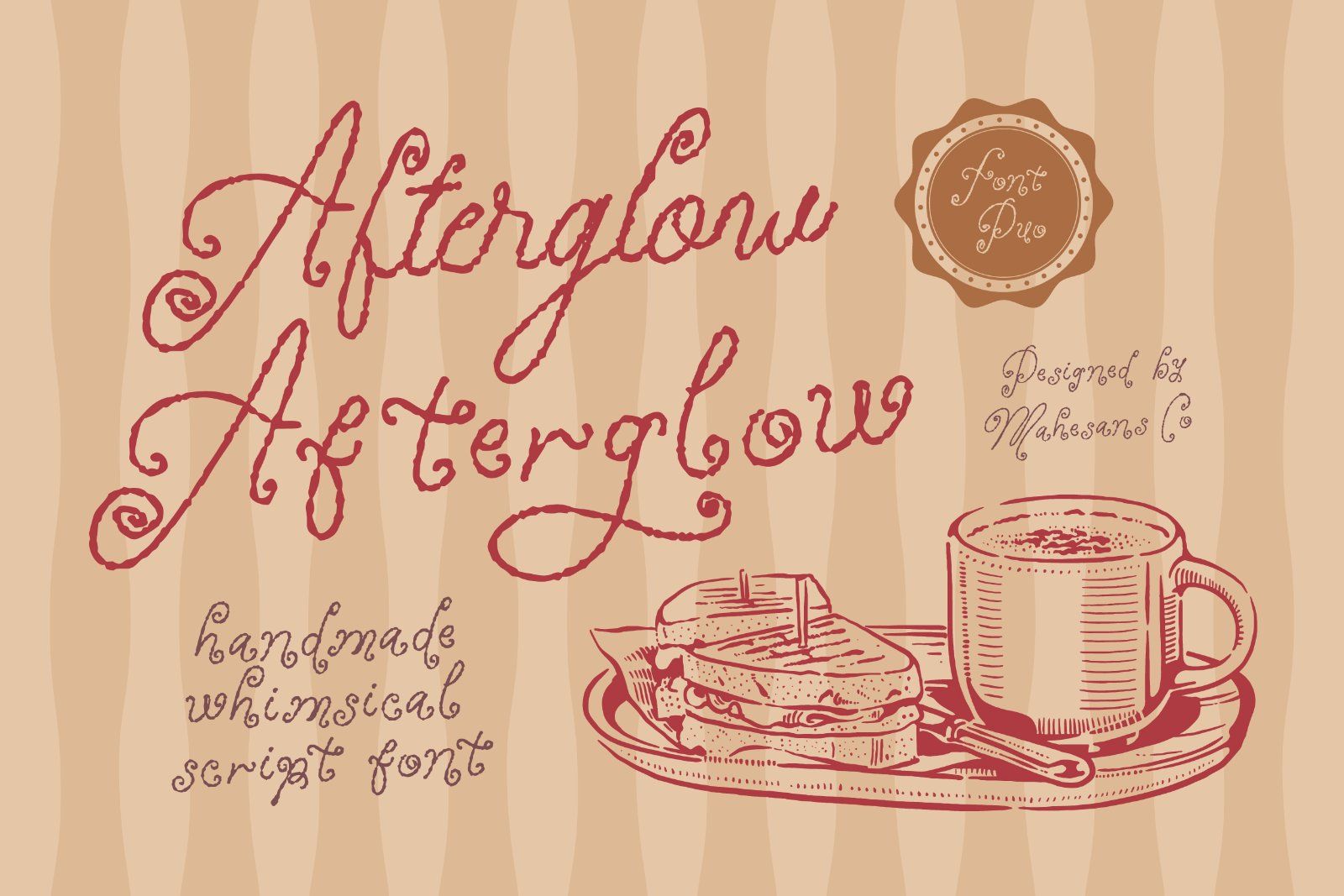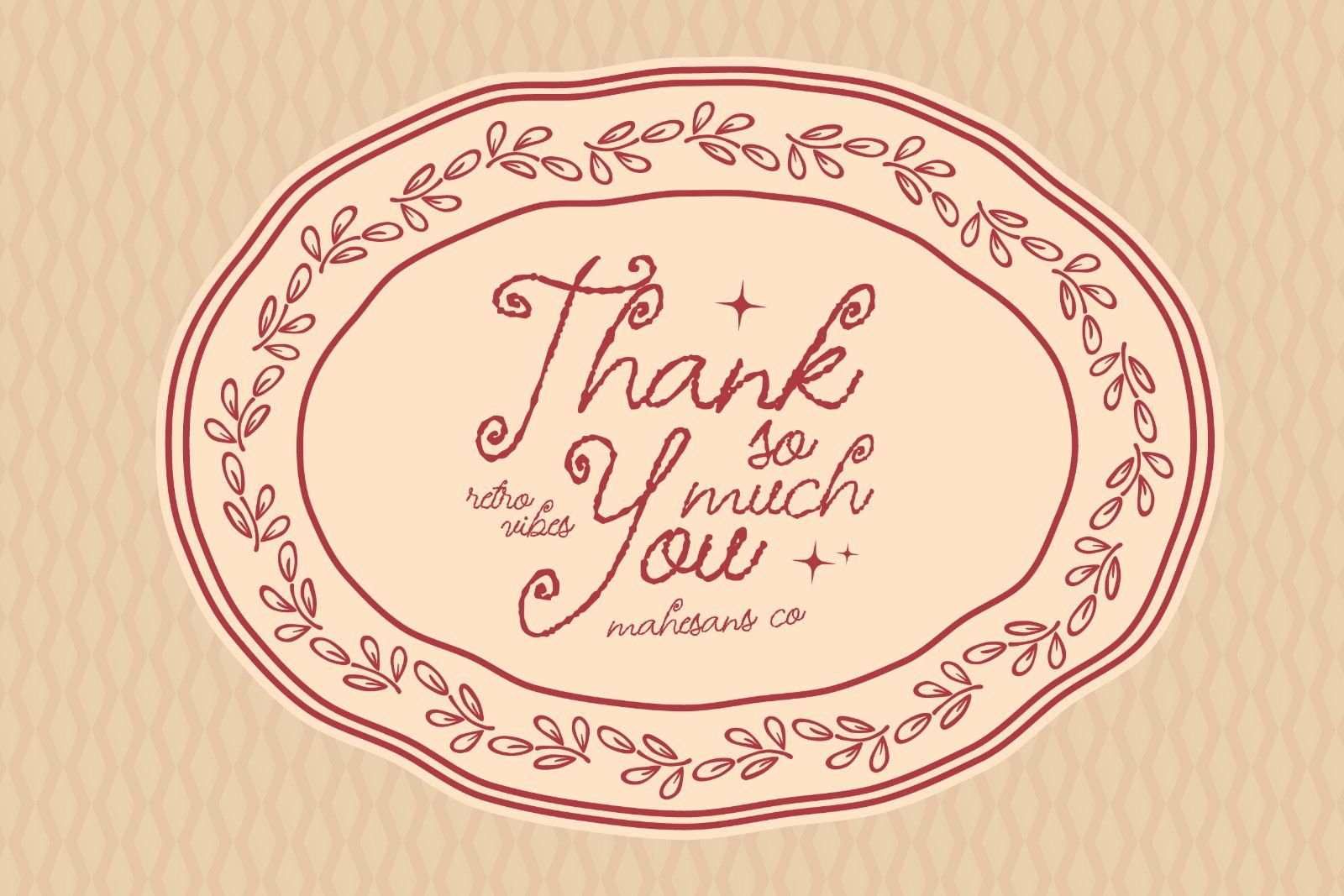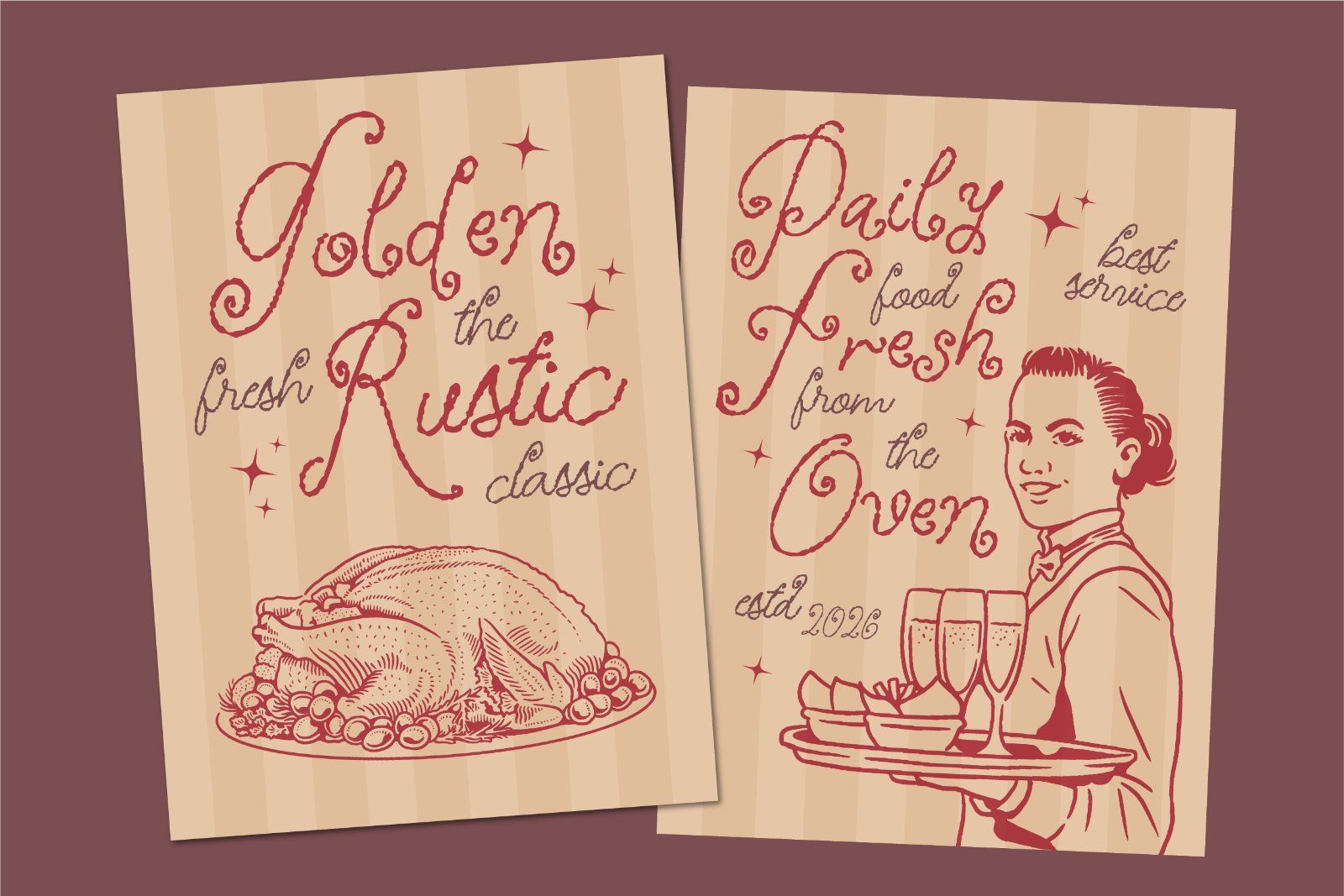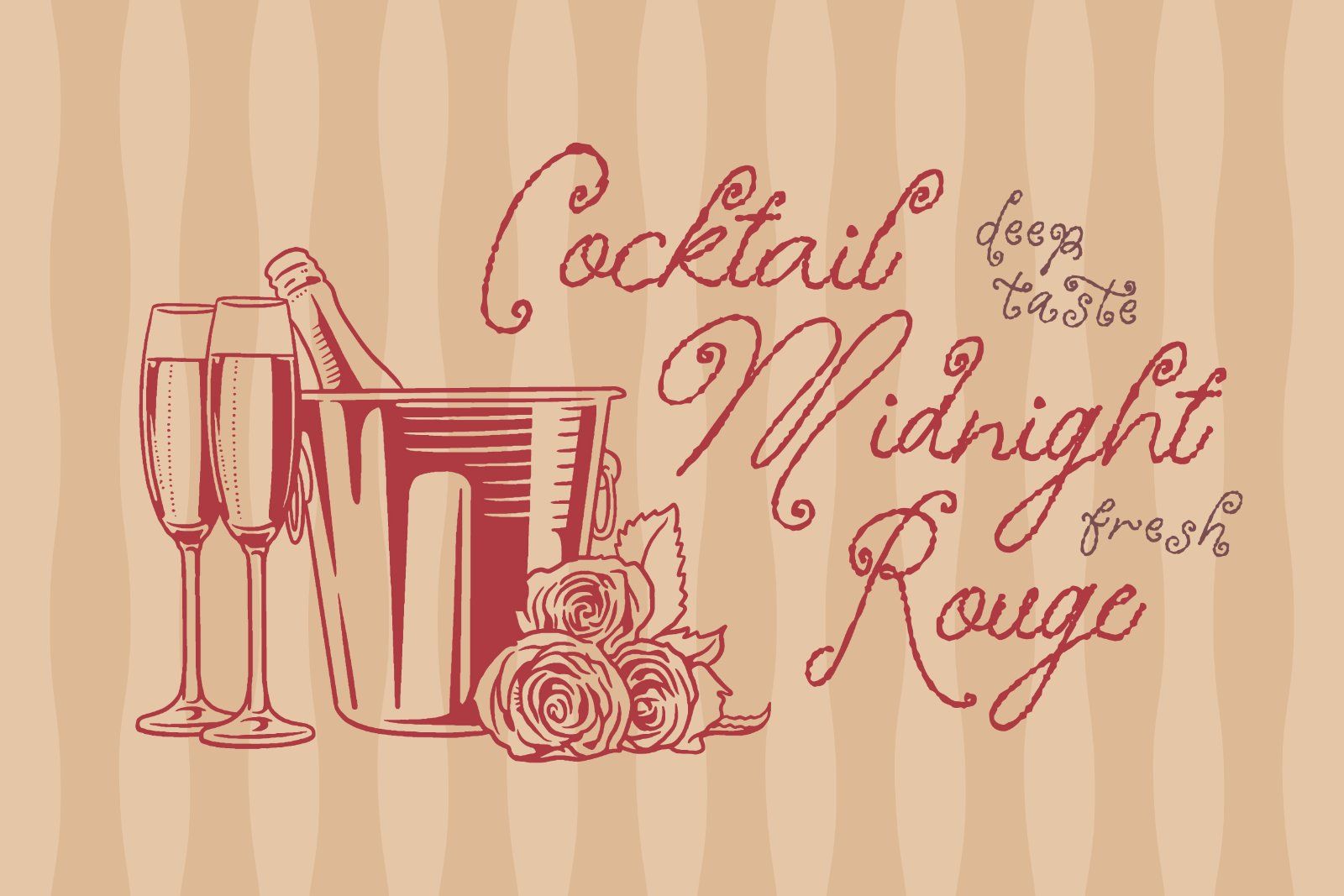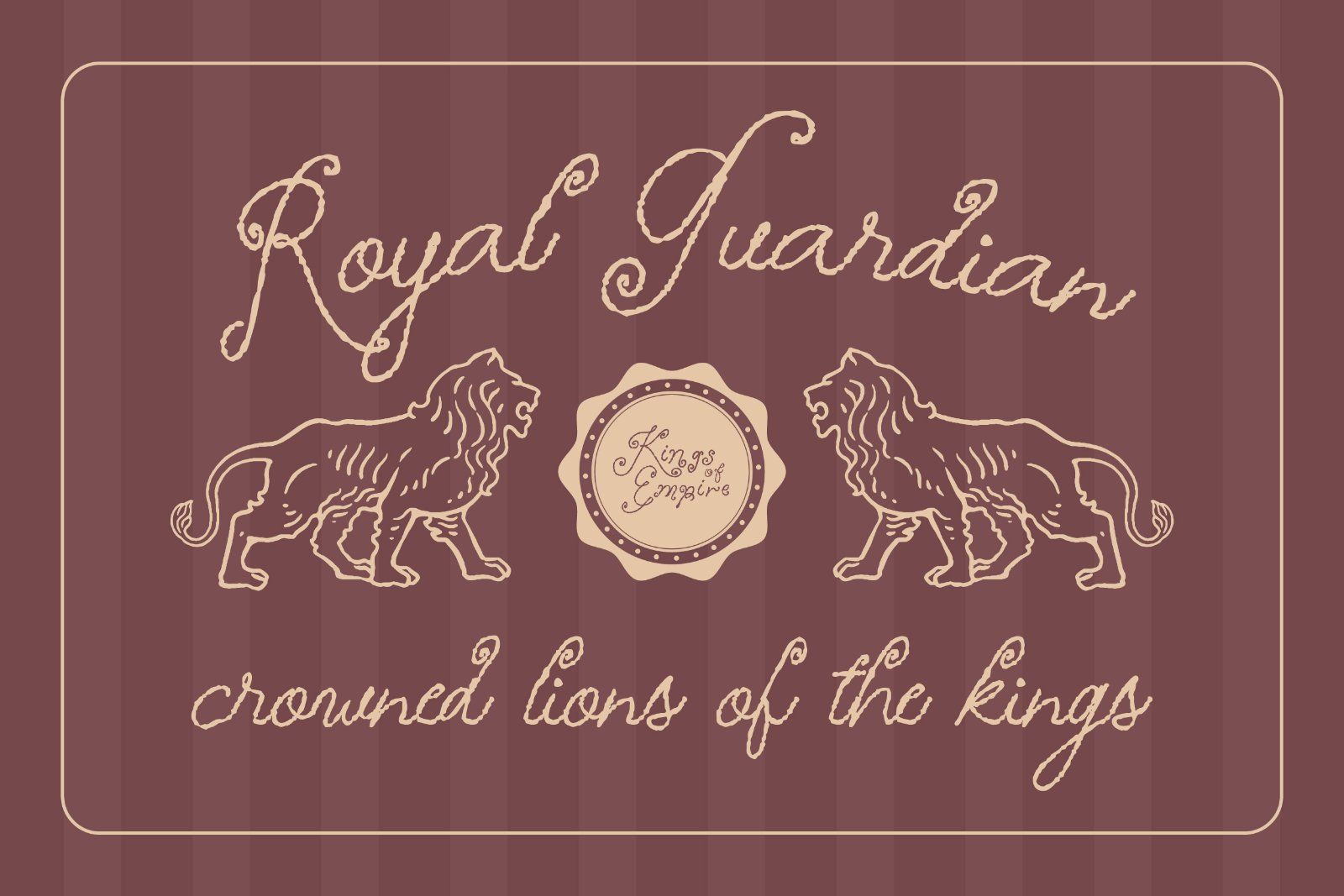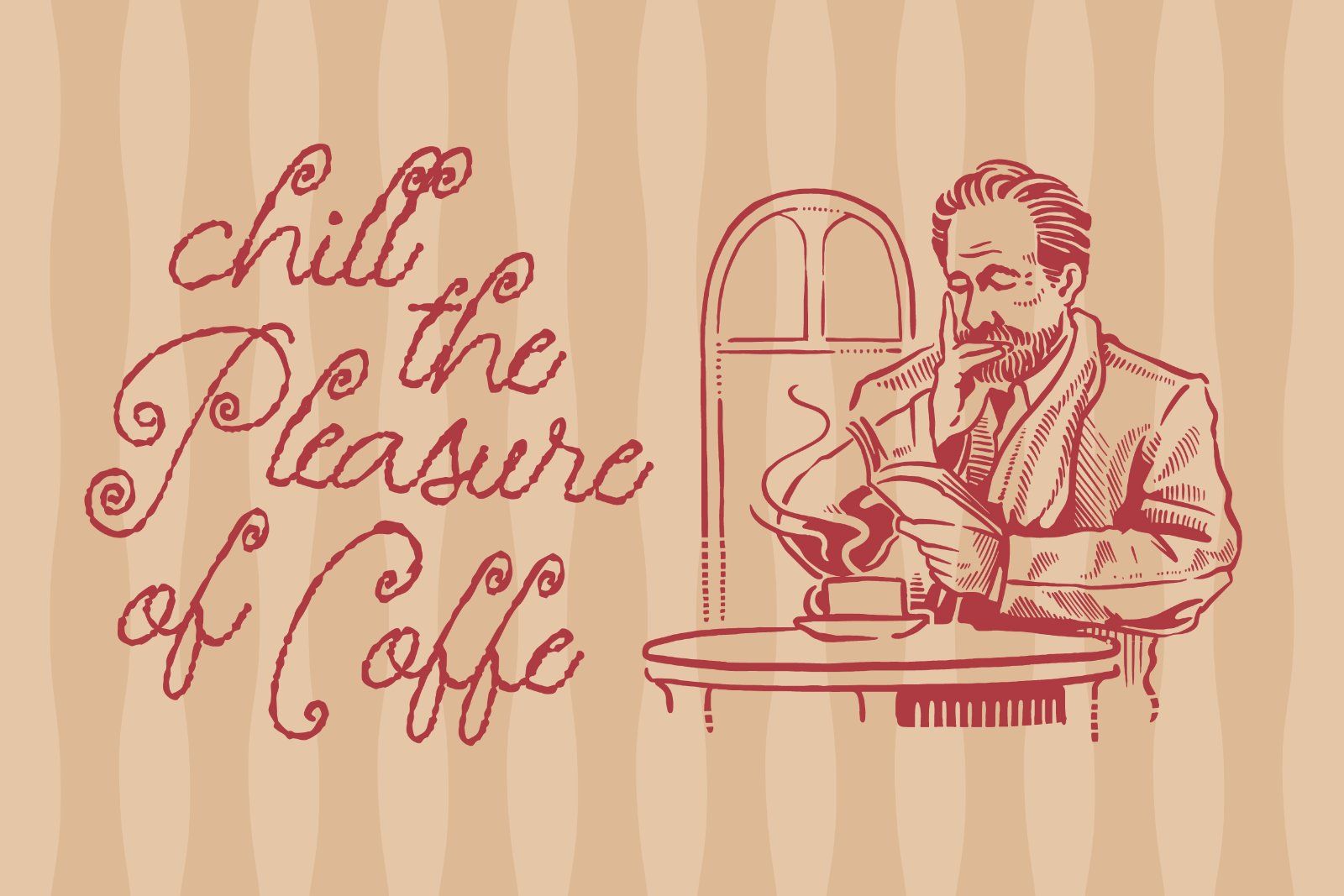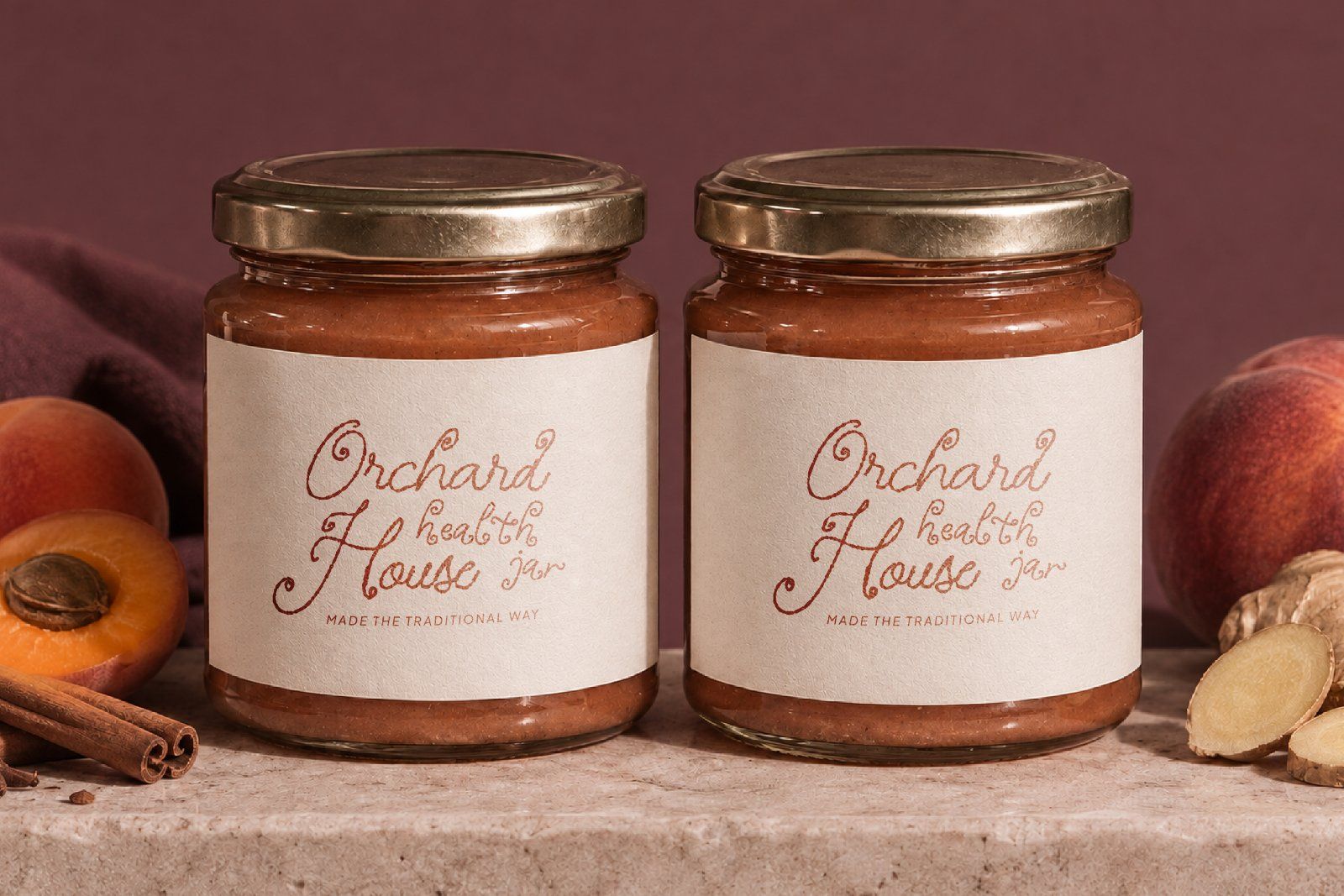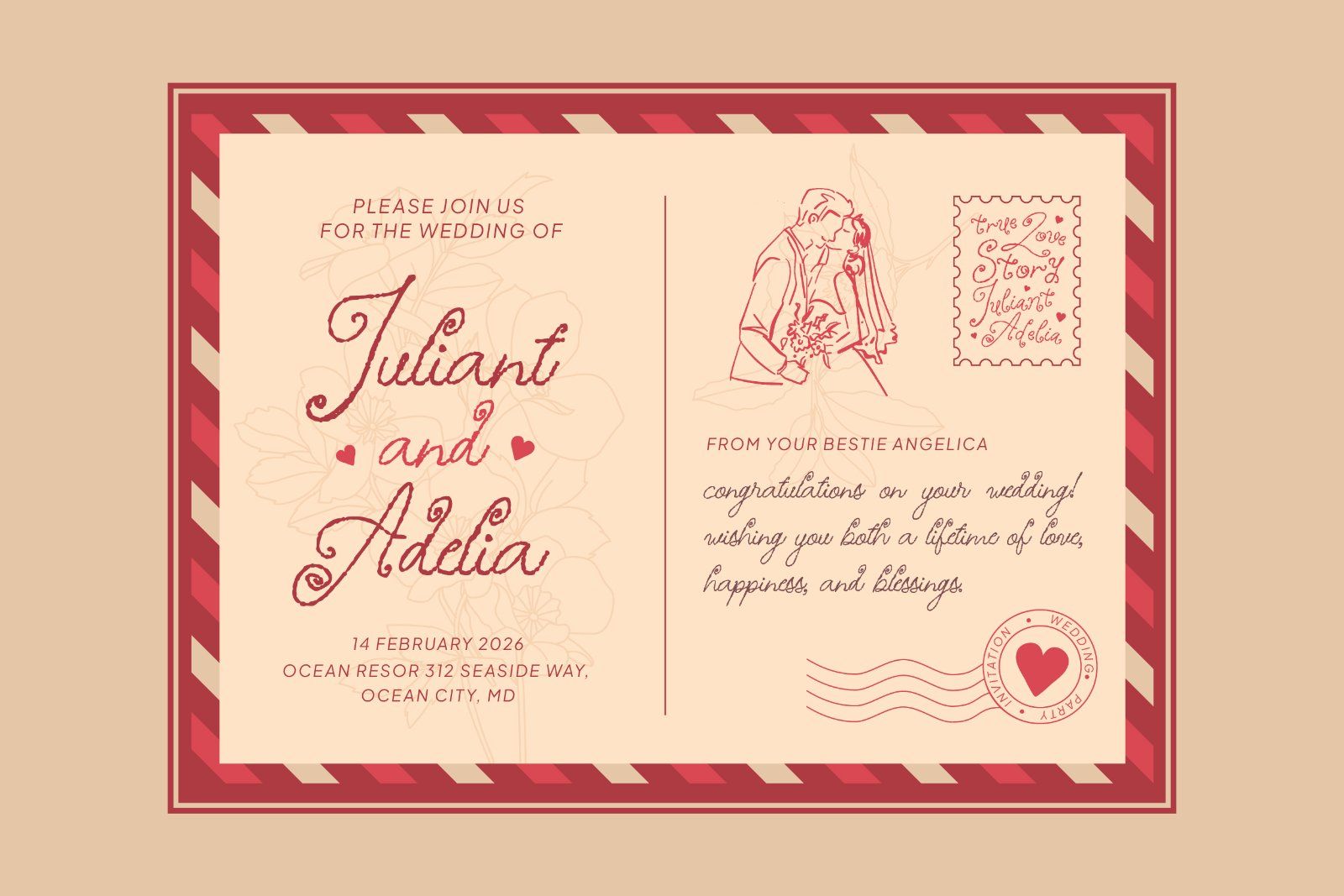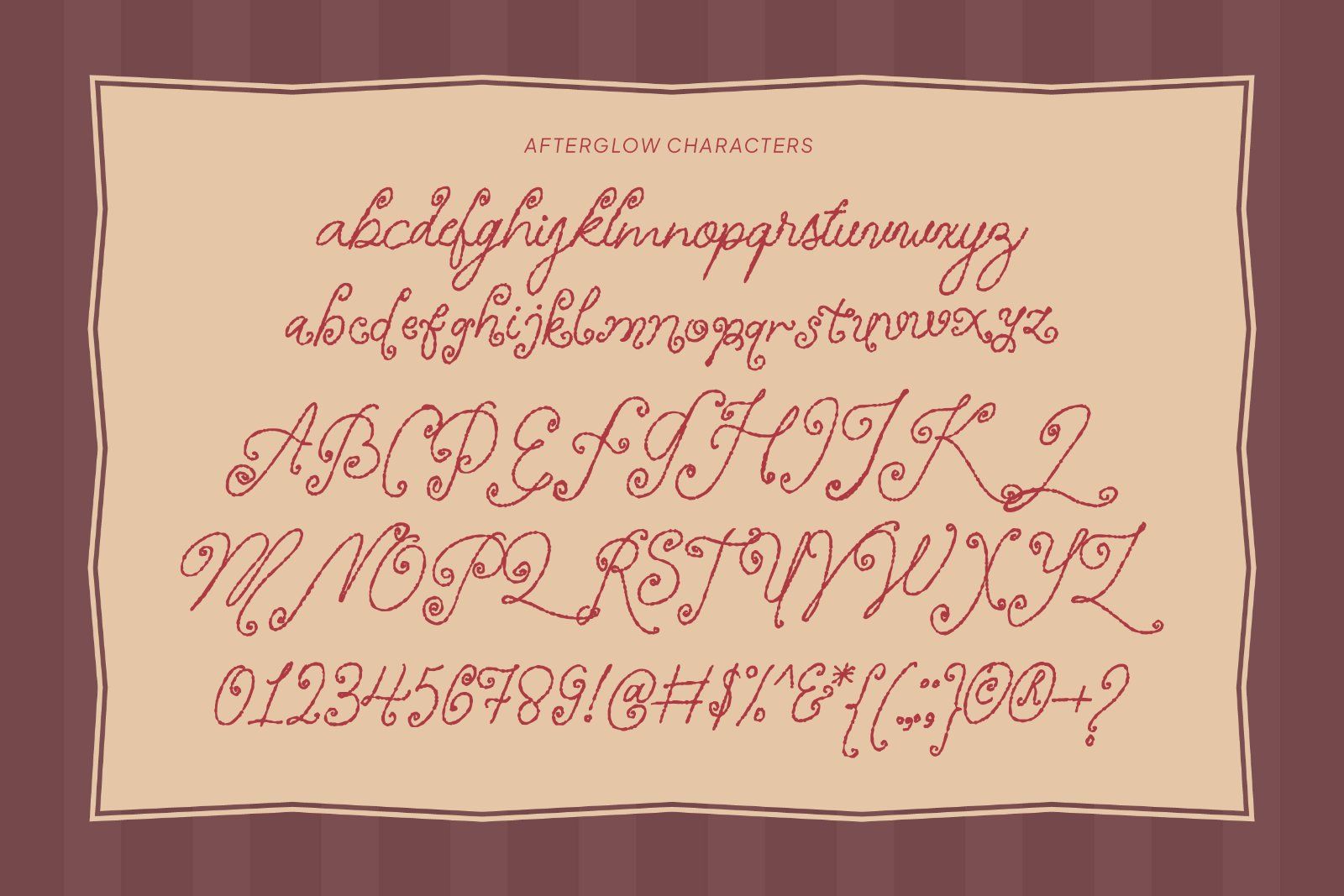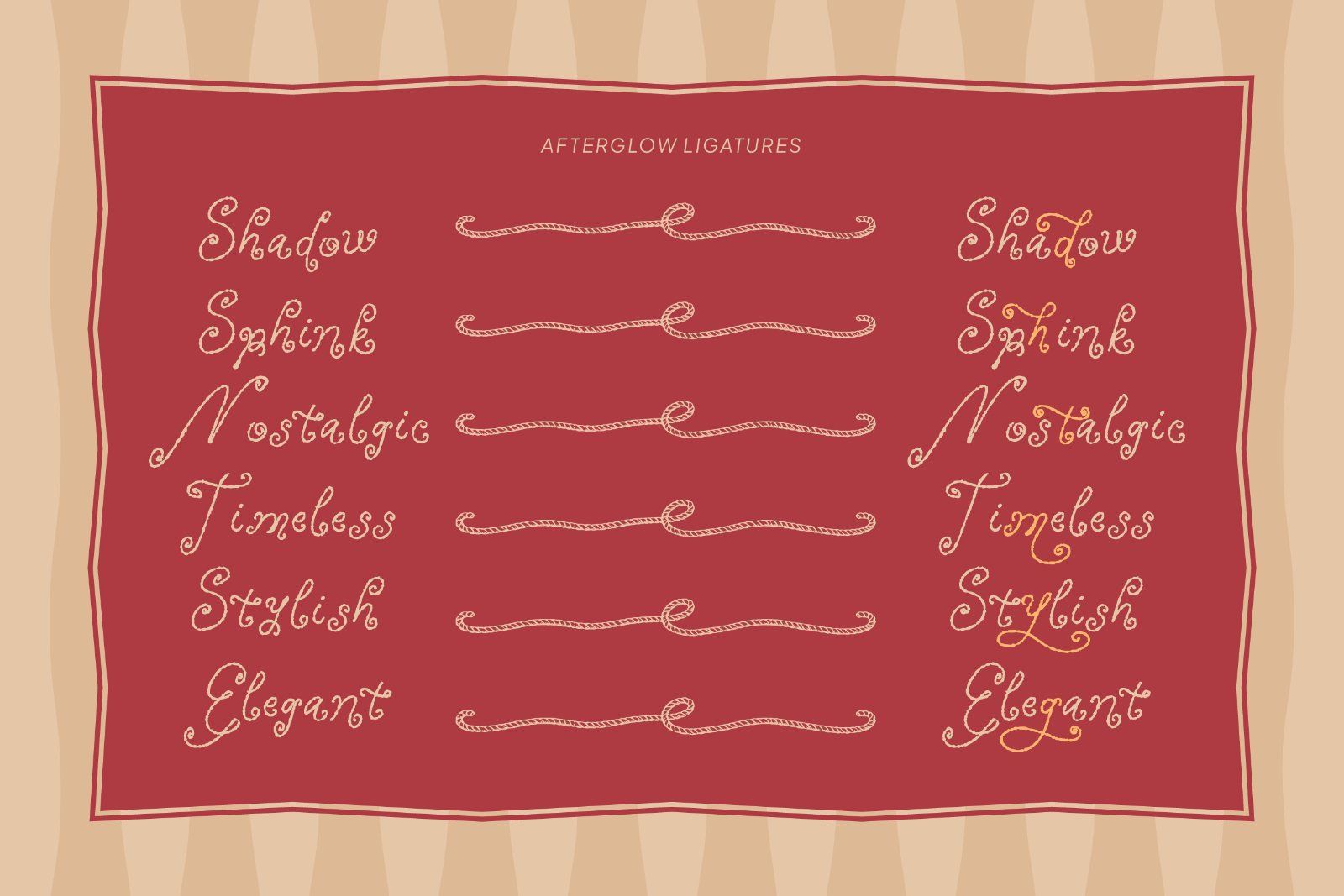
Afterglow is a vintage handwritten script font with an elegant, expressive character and a beautifully handcrafted feel. Its flowing letterforms, decorative swashes, and nostalgic details bring a touch of old-world charm to every design.
Afterglow works especially well for projects that need a classic, romantic, retro, and sophisticated atmosphere while still maintaining a personal handwritten touch.
• Restaurant Branding
• Food Packaging
• Café Menus
• Vintage Logos
• Wedding Stationery
• Labels
• Invitations
• Apparel
• Editorial Designs.
• Duo Font (Afterglow & Afterglow V2)
• Alternates & Ligatures